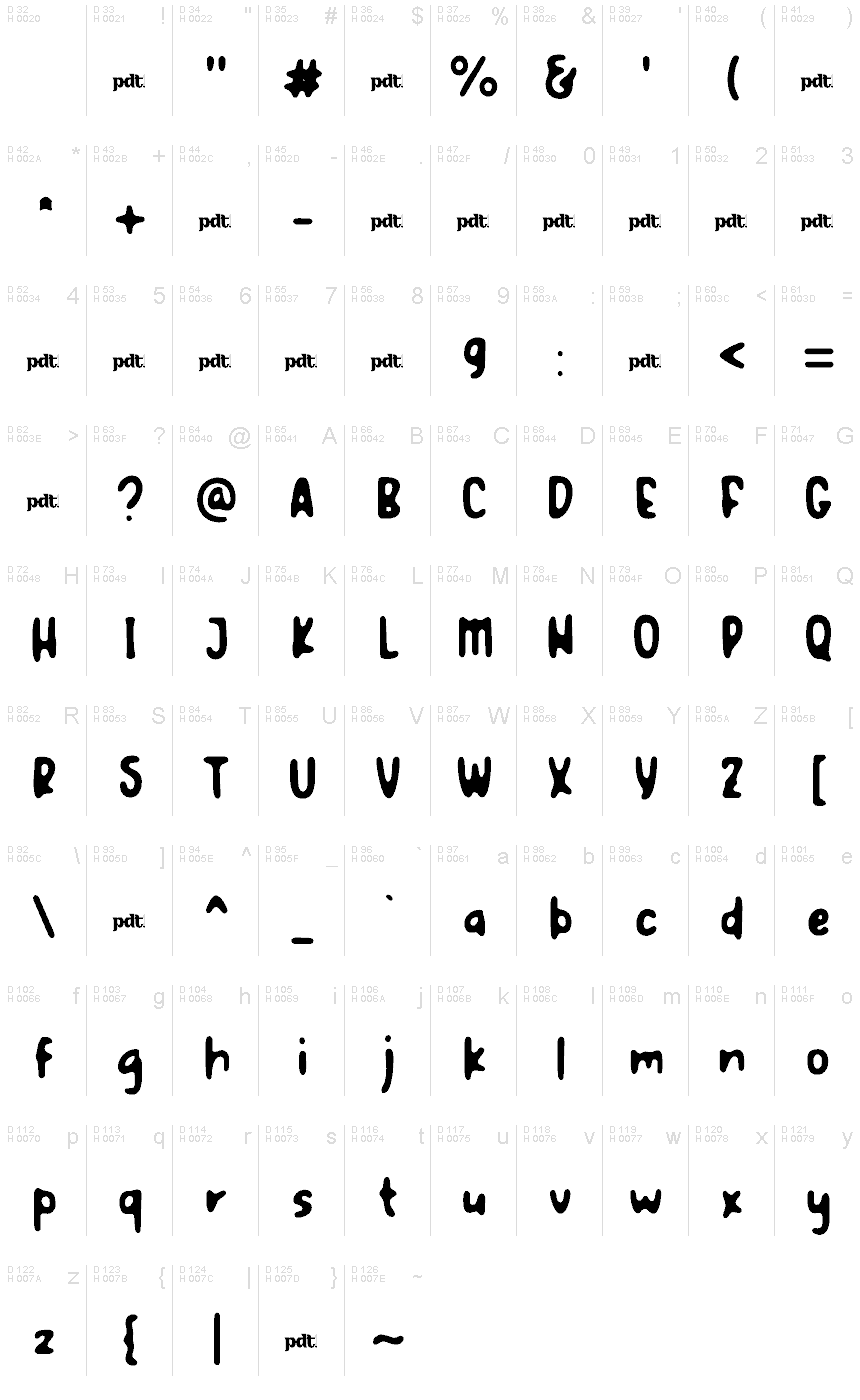
CHORUNtrial-Blur
Chorun Blur, a free font designed by Productype, is a perfect font for any project that aims for a contemporary, urban vibe. The font is inspired by the classic graffiti style with its smooth and rounded curves in addition to the rounded edges found throughout the letters. It supports multiple languages, providing you with more options in terms of designs. So, if you need a modern font for titles or posters and packaging design, etc., Chorun is the one for you.